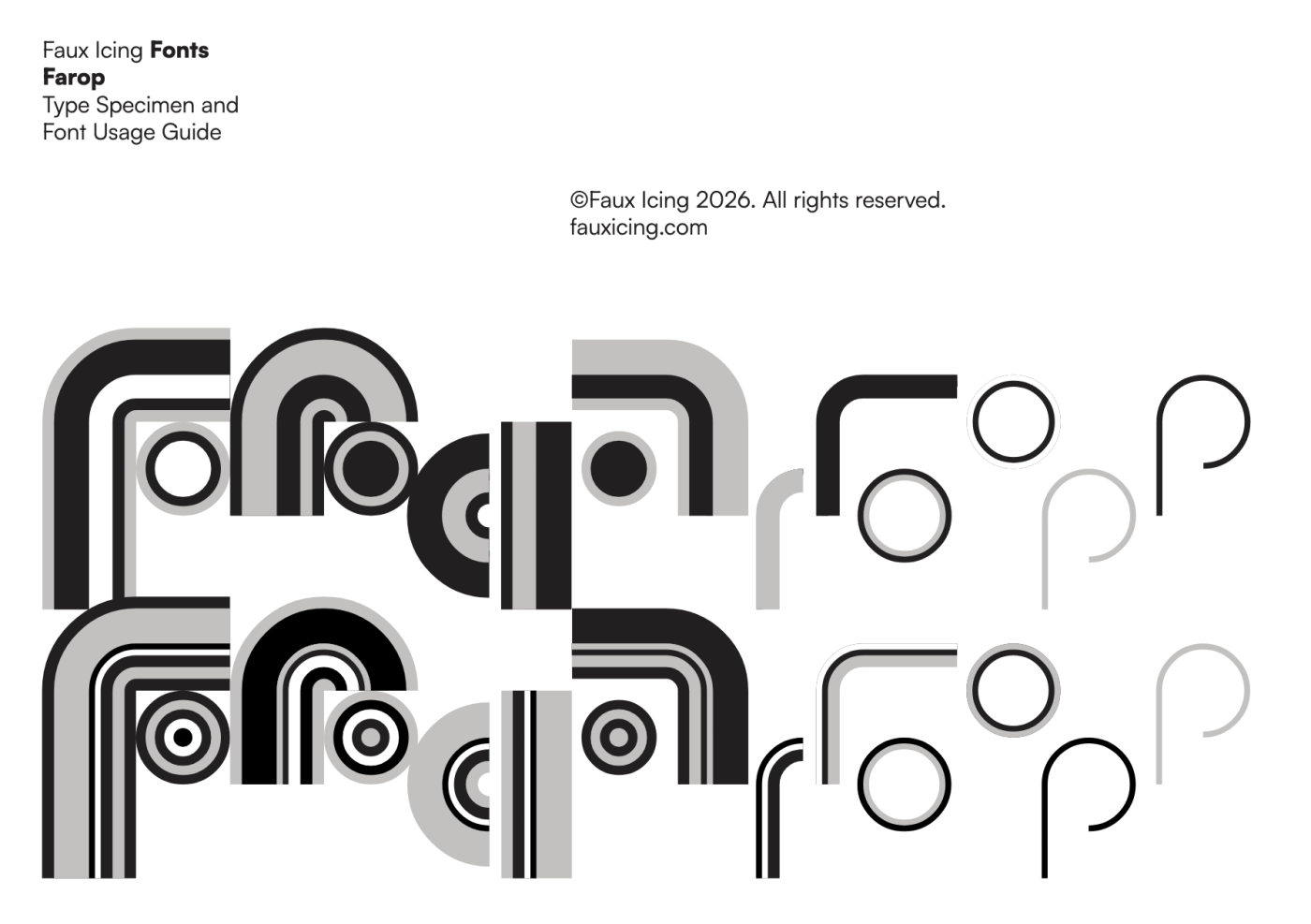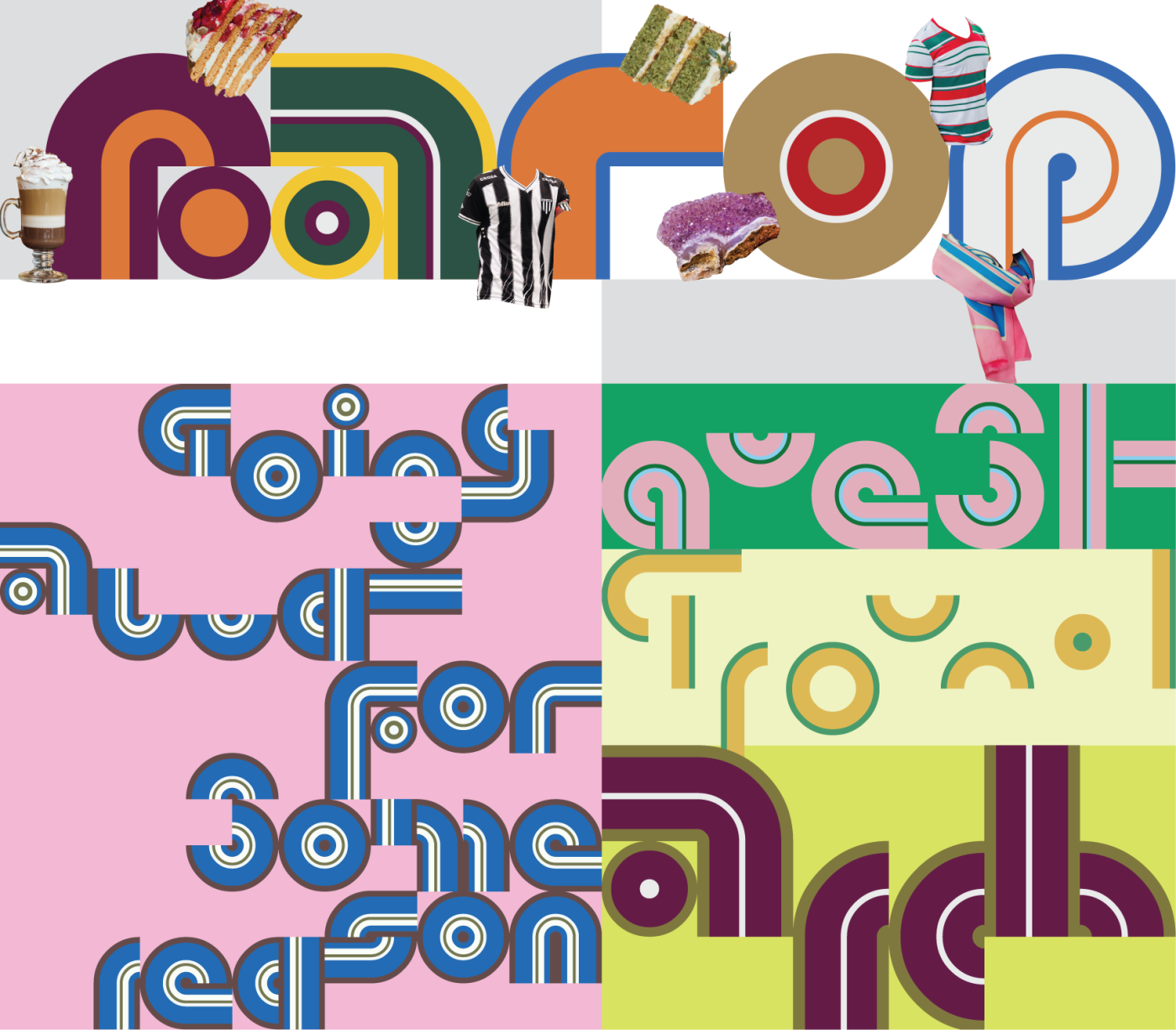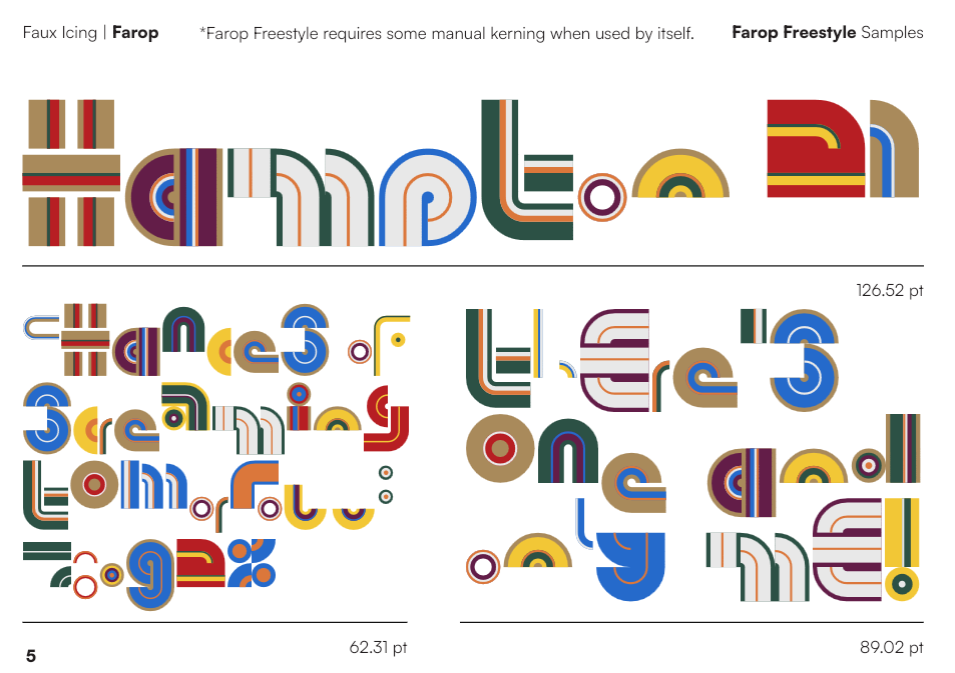
Farop (short for Fanning a Ream of Paper) is an inline display type family that employs non-rhythmic stroke widths, layered overlays, and unconventional alignments to create a distinctive multi-lined aesthetic. It deliberately breaks away from traditional typographic conventions by disregarding standard baselines in favour of chunky, brutalist letterforms and self-determined vertical positioning.
Farop Freestyle (shown here) is composed of eight coloured layers, each manipulating the glyphs with differently coloured stripes. It serves as a visual reference for the wide range of styles that can be achieved with the Farop family, while also functioning as a ready-to-use colour font for bold, maximalist inline typography.
A lovely experiment! A little hard to read in some places, (the “Y” in particular is quite confusing) but with such a small grid, it’s more than forgivable. Fun samples, too.
@Gr4ftY: Thanks! I originally made this coloured font in order to show the different variation of styles one can use Farop to do. The release of it as a standalone font is just a bonus. ;). I did intend for the typeface to suffer to a degree in terms of legibility in exchange for a whacky brutalist look.
Such great experimentation. Nice color palette too.